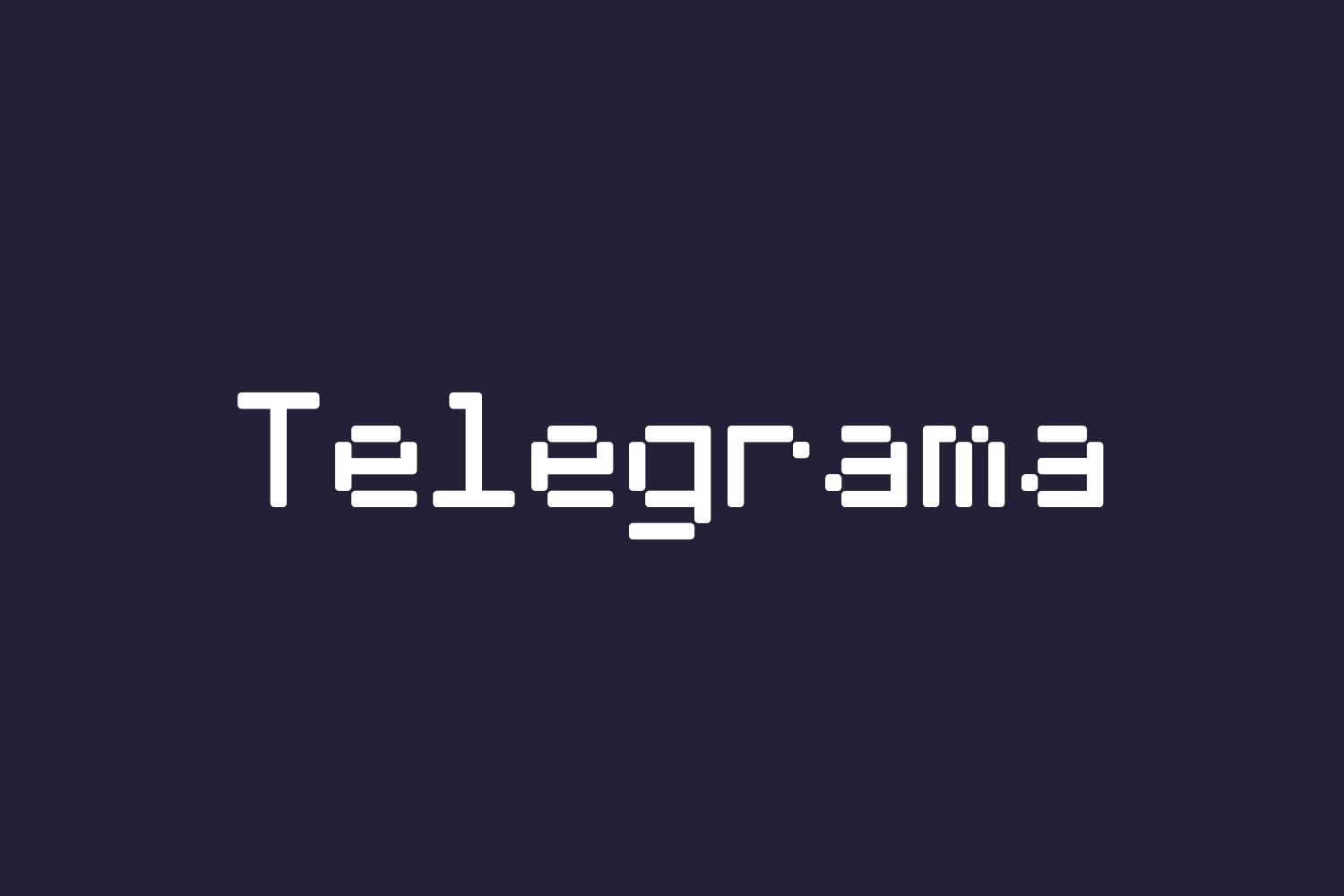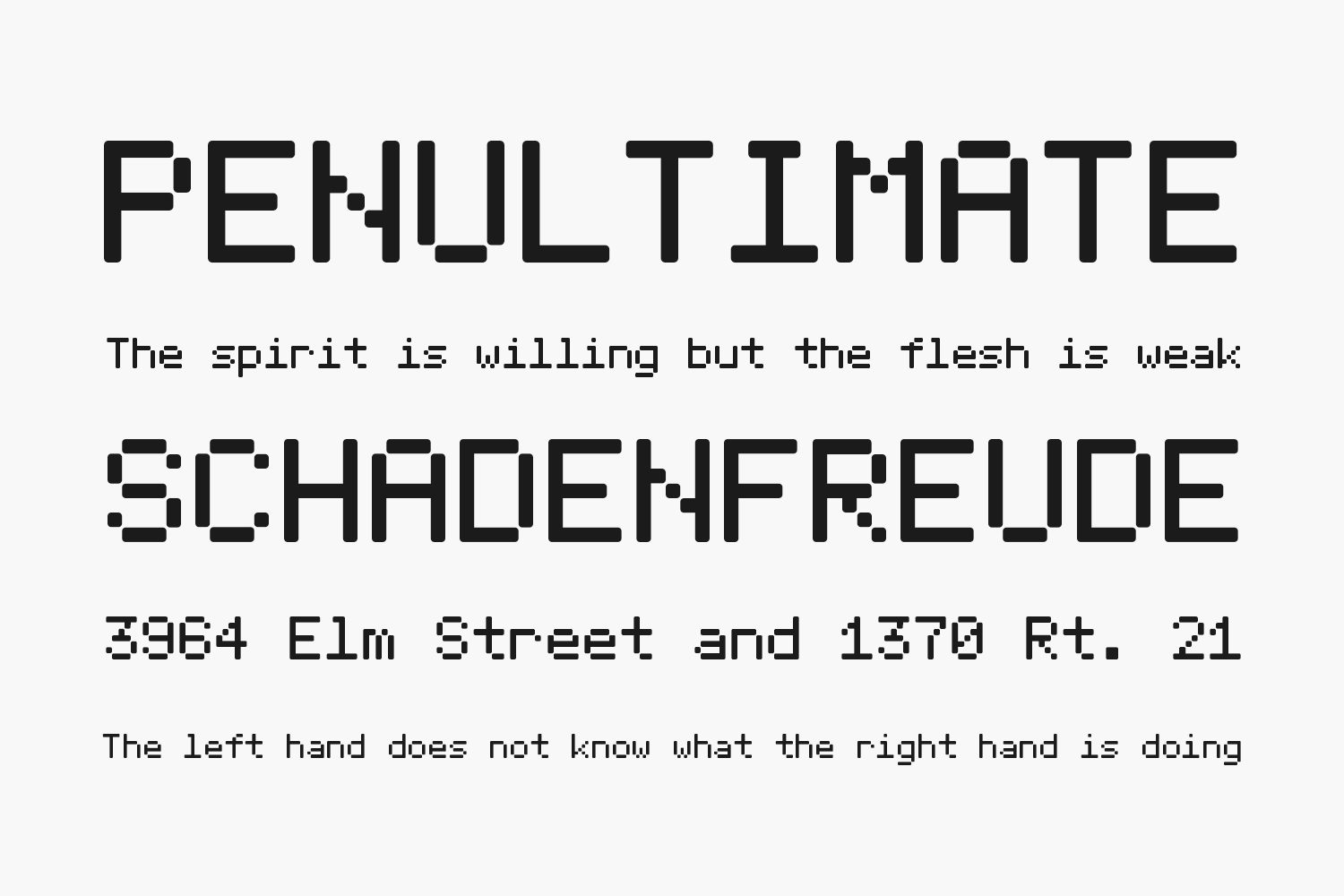
Telegrama Free Font is the typeface of the original idea for the relashionship between Pixe and Smoo. At the time of 1992 when I designed these, each of Telegrama Raw and Telegrama Render had another name as the differnt font. These fonts had been almost completed, but they have been forgotten until my discovering in 2008. This time, I united these two fonts as a family. I decided to exhibit these with a little fixing and adding some accented characters, etc.